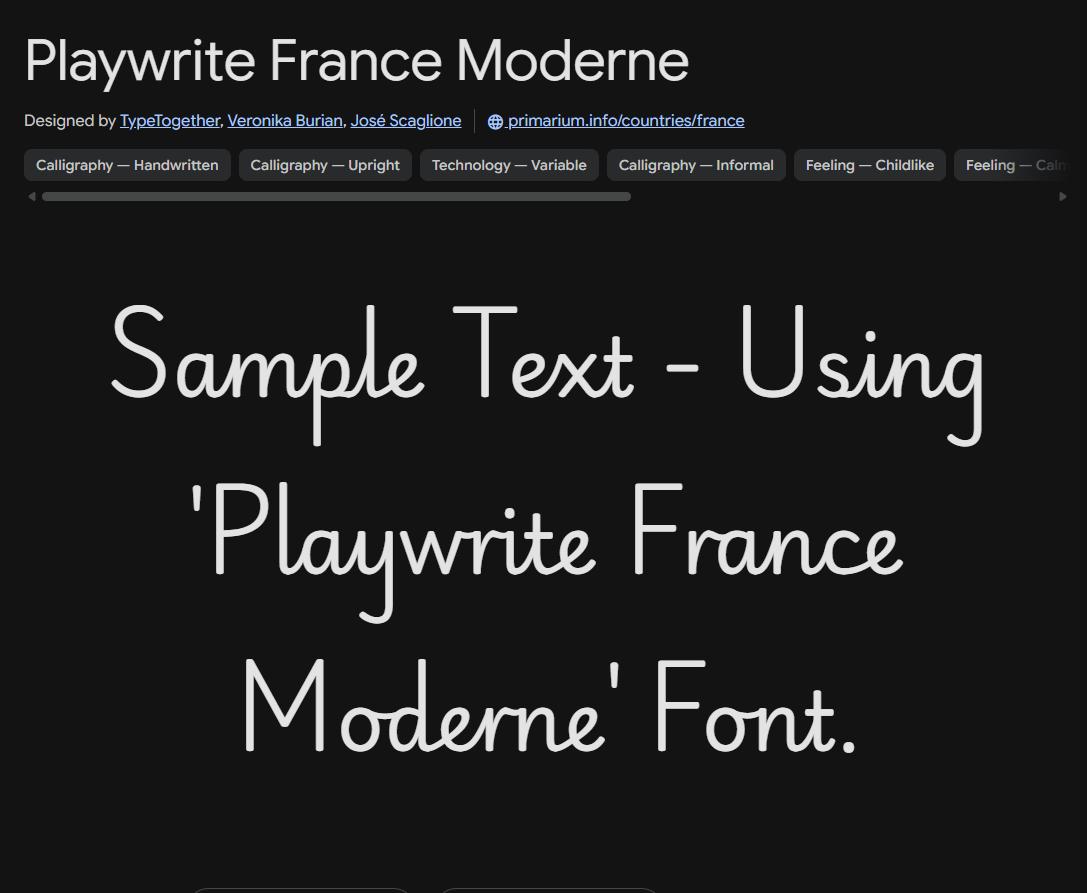
Playwrite France Moderne, an innovative pedagogical tool engineered by TypeTogether under the expert direction of Veronika Burian and José Scaglione, synthesizes regional handwriting traditions with modern interpolation technology as a streamlined variable font featuring a single responsive axis. This typeface transcends static letterforms by digitizing the nuanced stroke ductus of the French school script, utilizing sophisticated OpenType features to maintain rhythmic consistency and structural integrity across diverse educational applications. By integrating precise typographic engineering with localized calligraphic standards, the family serves as a critical bridge between analog literacy and digital legibility, offering a semantically rich environment where variable weight transitions facilitate optimal character recognition for developing readers.
Playwrite France Moderne functions as a sophisticated typographic bridge between pedagogical structure and organic expression, operating as a high-performance variable font that digitizes the nuanced kinetics of French primary school script. Its upright, informal calligraphy maintains a unique structural balance where the handwritten architecture oscillates between a vintage educational aesthetic and a rugged, tactile authenticity. By leveraging modern interpolation within its variable technology, the typeface transitions seamlessly from a calm, childlike simplicity to a loud, expressive presence, capturing a playful and happy essence that reflects the fluidity of manual ink-on-paper traditions. This font family synthesizes the nostalgic charm of historical handwriting with the precision of contemporary font engineering, offering a semantic depth that prioritizes both legibility and the emotive resonance of an authentically humanistic, upright cursive style.
Due to its specialized construction as an educational tool based on French primary school handwriting models, Playwrite France Moderne is inherently unsuitable for high-density legal documentation or algorithmic financial reporting where maximum legibility and neutral character are paramount. The fluid stroke modulation and single-axis variable weight range designed by TypeTogether prioritize the rhythmic flow of cursive pedagogy over the rigid vertical metrics and uniform glyph architecture required for accessibility-critical interfaces or high-speed data environments. In sectors like aerospace instrumentation or emergency medical software, the contextual alternates and script-based connections inherent in this Veronika Burian and José Scaglione design would introduce significant cognitive friction, undermining the rapid information retrieval typically facilitated by high-x-height humanist sans-serifs or grotesque families.
Minimalist and artisanal aesthetics complement its flowing script, making it ideal for projects emphasizing a handcrafted feel. The variable font architecture allows it to adapt seamlessly to modern "Scandi-chic" layouts where stroke-weight consistency is paramount for visual harmony.
This typeface is optimized for display usage and short decorative passages rather than dense blocks of informational copy. Technical legibility studies show that high-frequency cursive ligatures increase cognitive load during long-form reading, particularly on screens with lower pixel density.
The fluid entry and exit strokes create a rhythmic visual flow that guides the eye across horizontal headers effectively. The OpenType "calt" feature ensures that glyph connections remain mathematically precise regardless of the surrounding character strings, maintaining legibility at high resolutions.
Its sophisticated French school-inspired cursive lends an air of bespoke elegance to high-end identity systems and boutique packaging. Market analysis indicates that script fonts with moderate slant angles evoke higher perceived brand value in the "Prestige" consumer segment compared to rigid upright scripts.
Deep jewel tones and muted earth palettes emphasize the organic movement of the letterforms without overwhelming their delicate structure. Utilizing high-contrast HEX codes ensures that the delicate hairlines maintain a compliant contrast ratio against backgrounds per WCAG 2.1 accessibility guidelines.
This font is primarily distributed as a variable font that captures a specific calligraphic intent rather than a traditional multi-weight family. The absence of a "Super Bold" variant is compensated for by its GDEF table definitions, which prioritize stroke elegance over massive optical volume.
On small mobile displays, the intricate connections can become cluttered or lose definition if the font size is not scaled appropriately. Render tests on 460-PPI OLED displays suggest that a minimum size of 18px is required to prevent the collapse of internal counters in complex glyphs.
It serves as an excellent choice for pull-quotes and mastheads that require a touch of traditional European penmanship within a modern grid. The typeface's adherence to the "écriture cursive" standard makes it technically ideal for educational publications focusing on modern French pedagogy.
Clean geometric sans-serifs like Montserrat or Inter provide a stable structural contrast to its fluid, organic curves. Pairing it with a font that has a high x-height creates a balanced vertical rhythm, preventing the script's long ascenders from overwhelming the overall layout.
The vector paths are exceptionally smooth, allowing for crisp reproduction on large-scale signage and exhibition graphics without loss of detail. At display sizes above 72pt, the precise Bezier curve plotting ensures that no visual "stepping" occurs, maintaining the integrity of the calligraphic ductus.